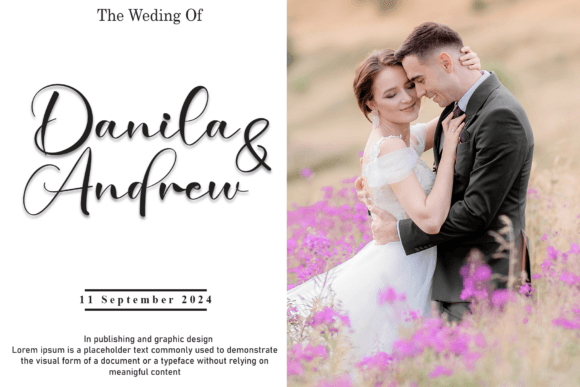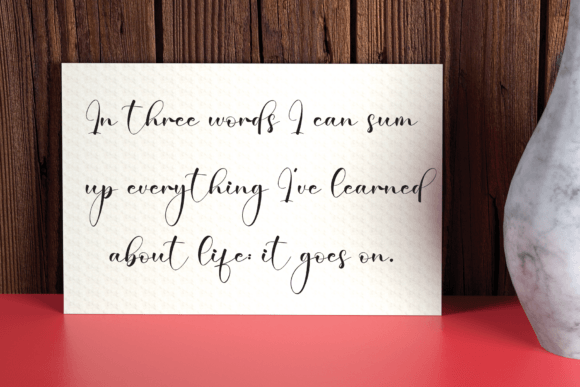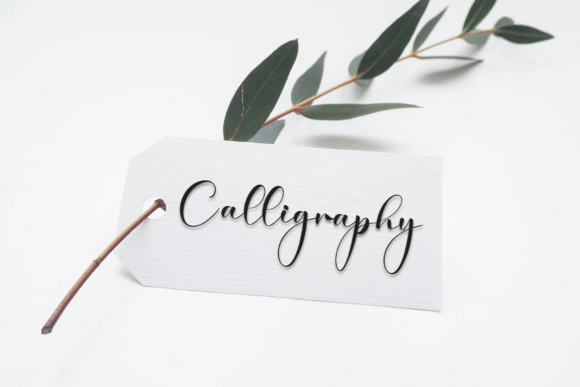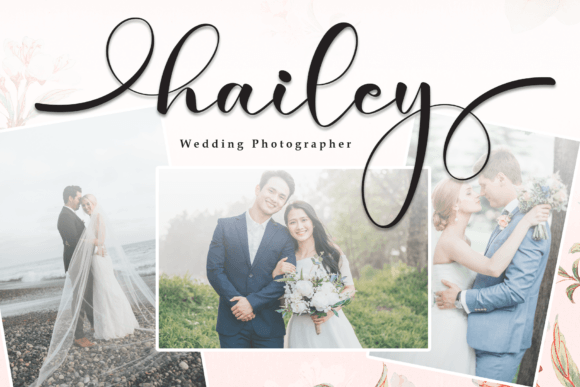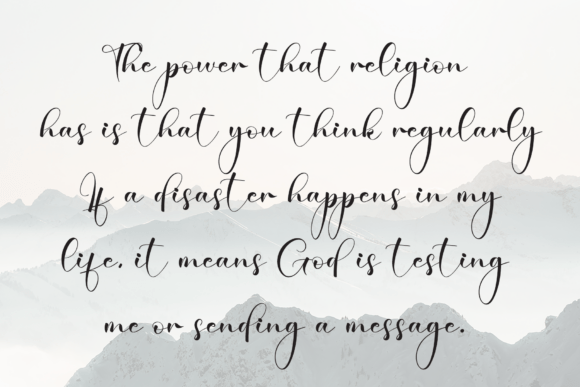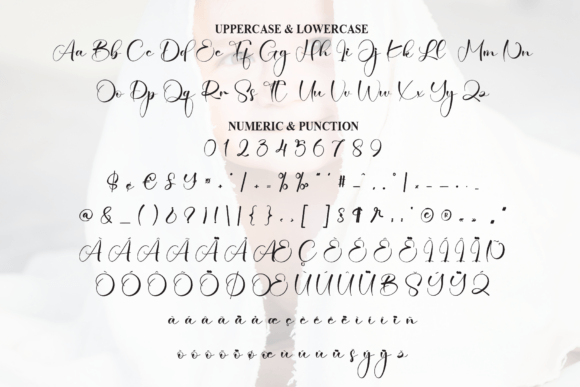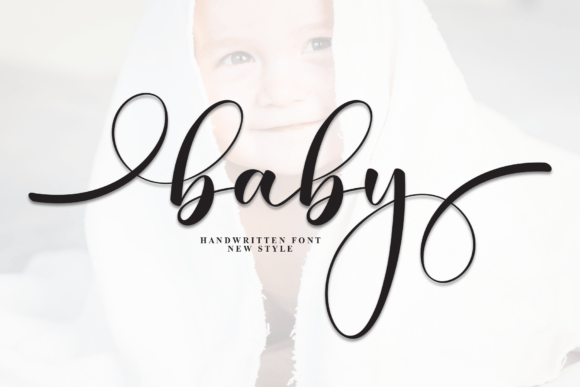
Baby Font: The Ultimate Choice for Whimsical and Playful Designs
Are you looking for a font that can add a touch of playfulness and whimsy to your designs? Look no further than Baby Font, a charming handwritten typeface that captures the essence of childhood and youth. With its soft and round letters, Baby Font is perfect for creating invitations, nursery decor, and any other project related to babies and children.
The Characteristics of Baby Font
Baby Font is a unique and charming typeface that boasts a range of characteristics that make it perfect for designs that require a playful and whimsical feel. Some of the key features of Baby Font include:
- Soft and Round Letters: The letters in Baby Font are soft and round, giving them a friendly and approachable feel. This makes them perfect for designs that require a warm and inviting touch.
- Handwritten Style: Baby Font is a handwritten typeface, which gives it a personal and unique feel. The handwritten style adds a touch of whimsy and playfulness to any design.
- Playful and Whimsical Feel: Baby Font has a playful and whimsical feel that makes it perfect for designs related to babies and children. The font is sure to bring a smile to the face of anyone who sees it.
Uses of Baby Font
Baby Font is a versatile typeface that can be used for a range of design projects. Some of the most popular uses of Baby Font include:
- Invitations: Baby Font is perfect for creating invitations for baby showers, birthday parties, and other celebrations related to babies and children.
- Nursery Decor: The font can be used to create beautiful and personalized nursery decor, including wall art, banners, and other decorative items.
- Children’s Products: Baby Font can be used to create a range of children’s products, including toys, books, and clothing.
- Digital Designs: The font can also be used for digital designs, including social media graphics, blog posts, and website headers.
Why Choose Baby Font?
There are many reasons why Baby Font is the ultimate choice for designers and crafters. Some of the benefits of using Baby Font include:
- Unique and Eye-Catching: Baby Font is a unique and eye-catching typeface that is sure to grab attention.
- Versatile: Baby Font is a versatile typeface that can be used for a range of design projects.
- Warm and Inviting: The font has a warm and inviting feel that makes it perfect for designs that require a personal touch.
Tips for Using Baby Font
Here are some tips for using Baby Font in your designs:
- Pair with Other Fonts: Baby Font can be paired with other fonts to create a unique and eye-catching design.
- Use for Headings: The font is perfect for headings and titles, where its playful and whimsical feel can really shine.
- Experiment with Colors: Baby Font looks great in a range of colors, so don’t be afraid to experiment and find the perfect color for your design.
In conclusion, Baby Font is a charming handwritten typeface that captures the essence of childhood and youth. With its soft and round letters, playful and whimsical feel, and warm and inviting style, Baby Font is perfect for designs related to babies and children. Whether you’re a designer or crafter, Baby Font is a great choice for any project that requires a unique and eye-catching typeface.